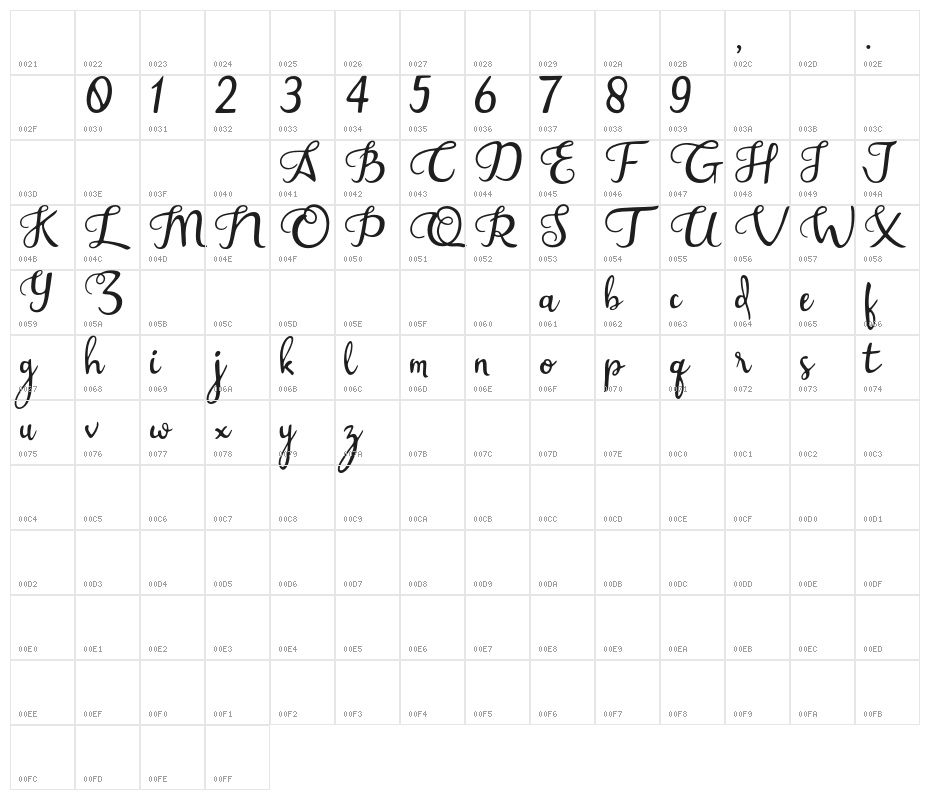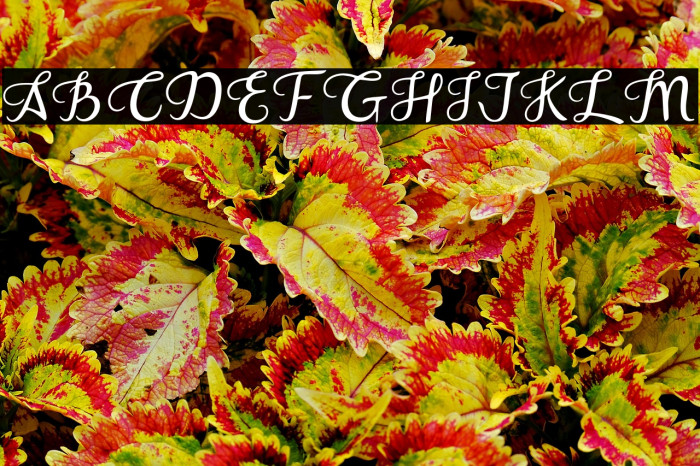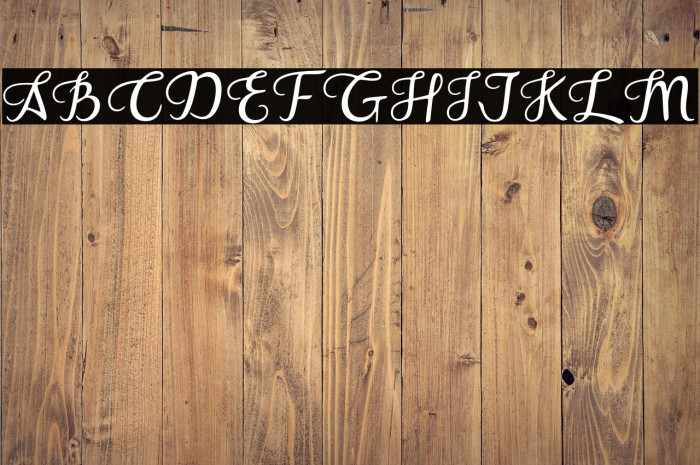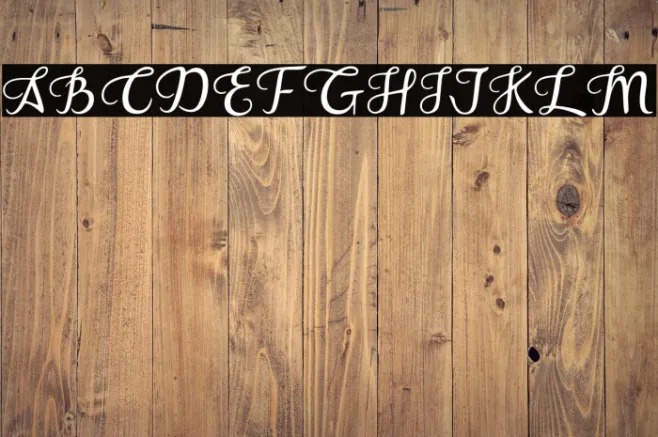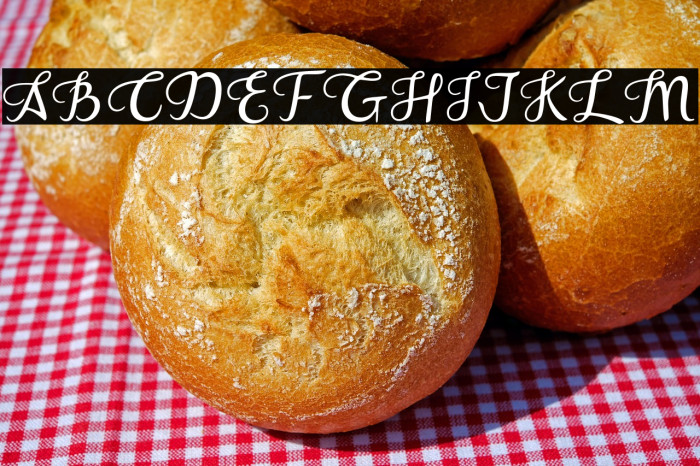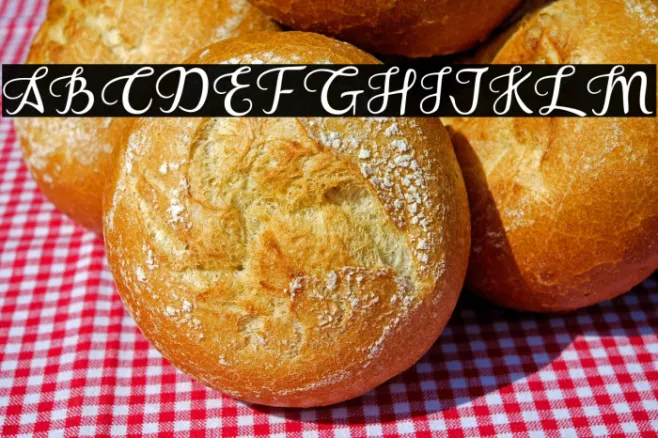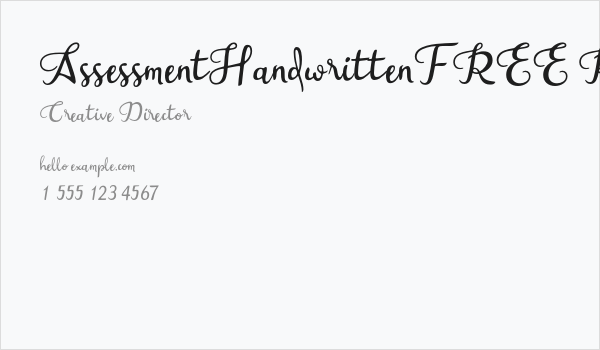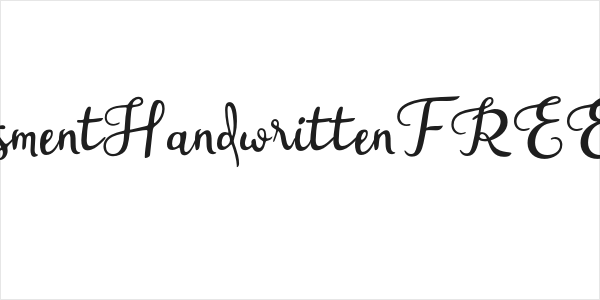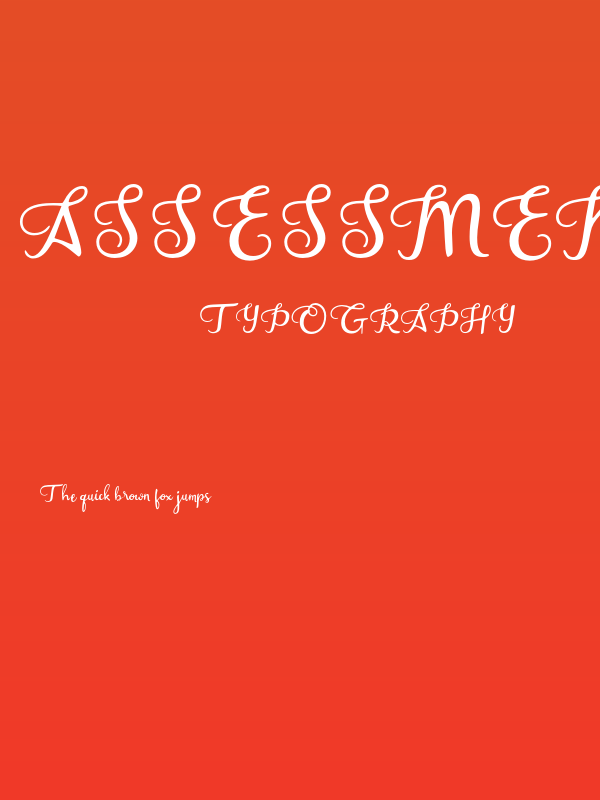
This font exudes a charming handwritten style, characterized by its fluid and cursive letterforms. The uppercase letters are elegantly looped, while the lowercase letters maintain a consistent flow with occasional flourishes. The numerals are clear and slightly rounded, complementing the overall aesthetic. The special characters are thoughtfully designed to match the script style, adding a cohesive touch to the font. This font captures the essence of personal handwriting, making it ideal for projects that require a personal or intimate feel.
| Use Case | Logos, Invitations, Personal Correspondence |
| Proposed Projects | Ideal for wedding invitations, personal letters, greeting cards, and branding that requires a personal touch. |